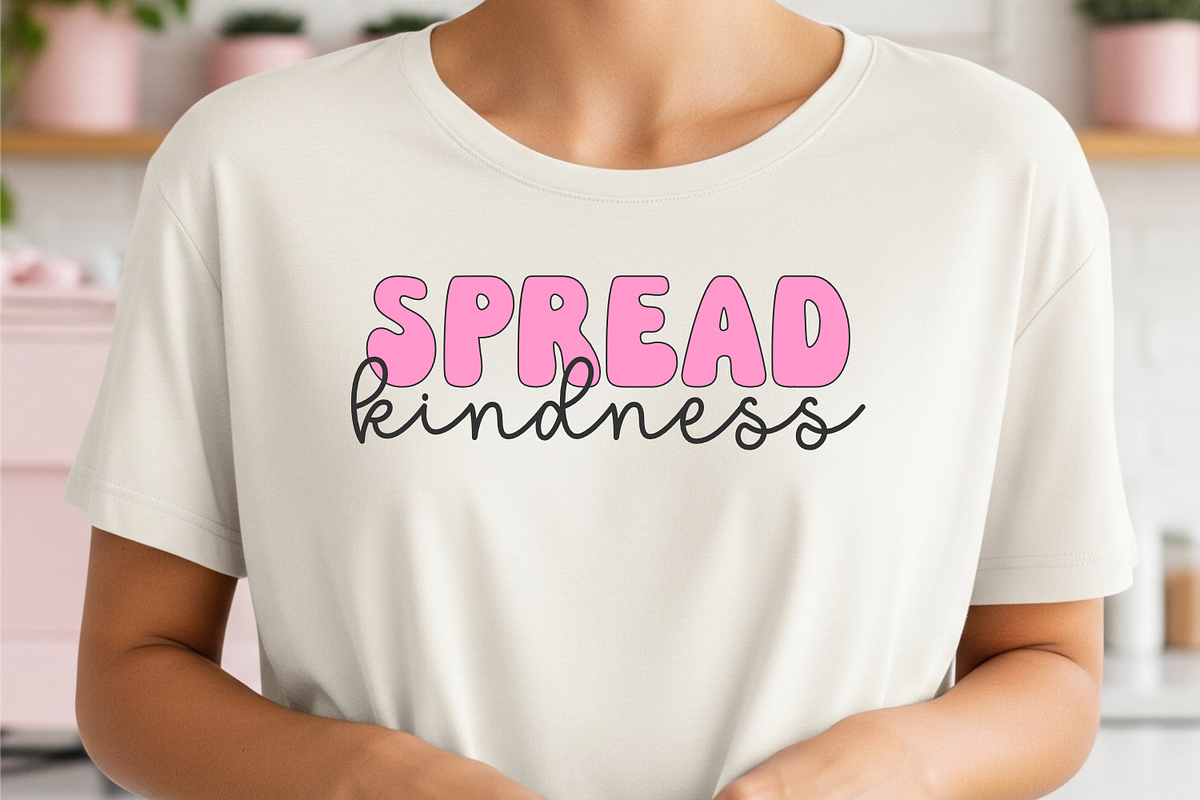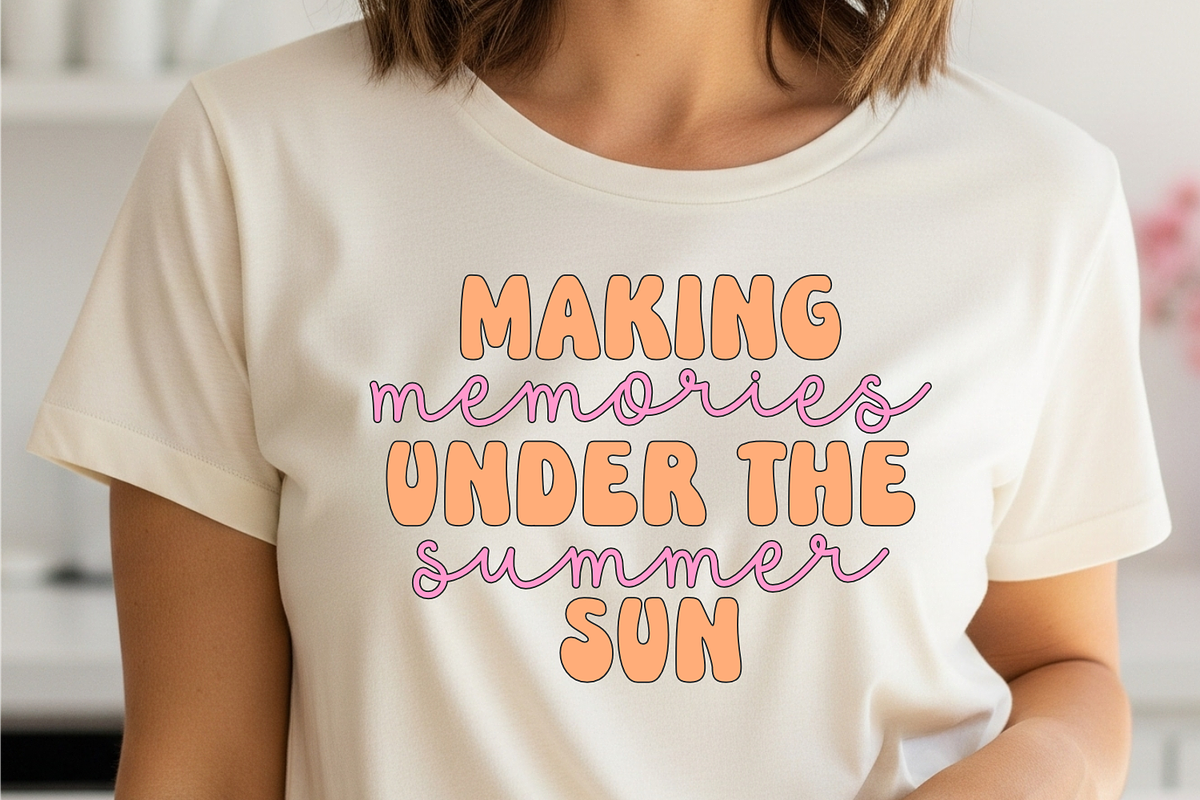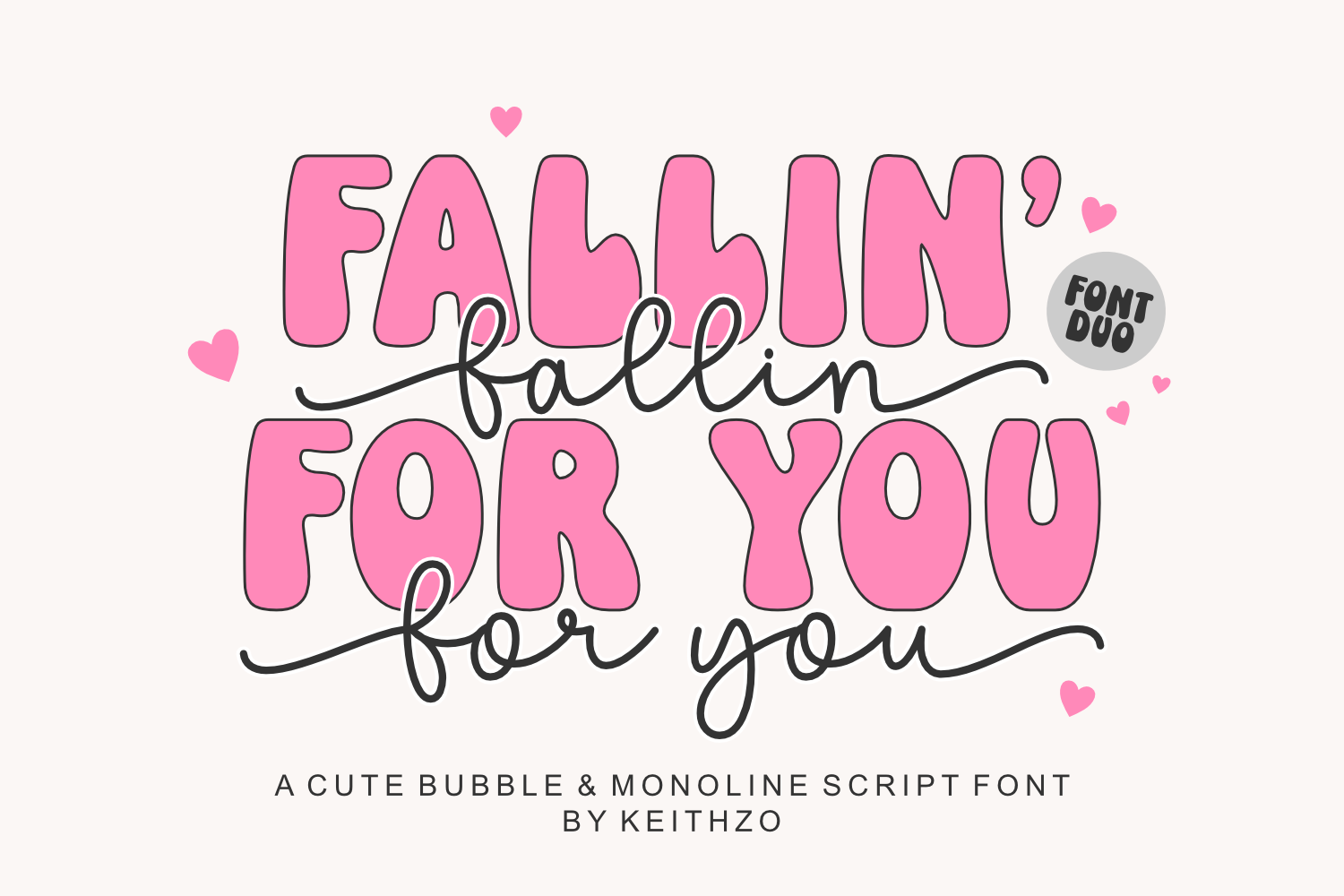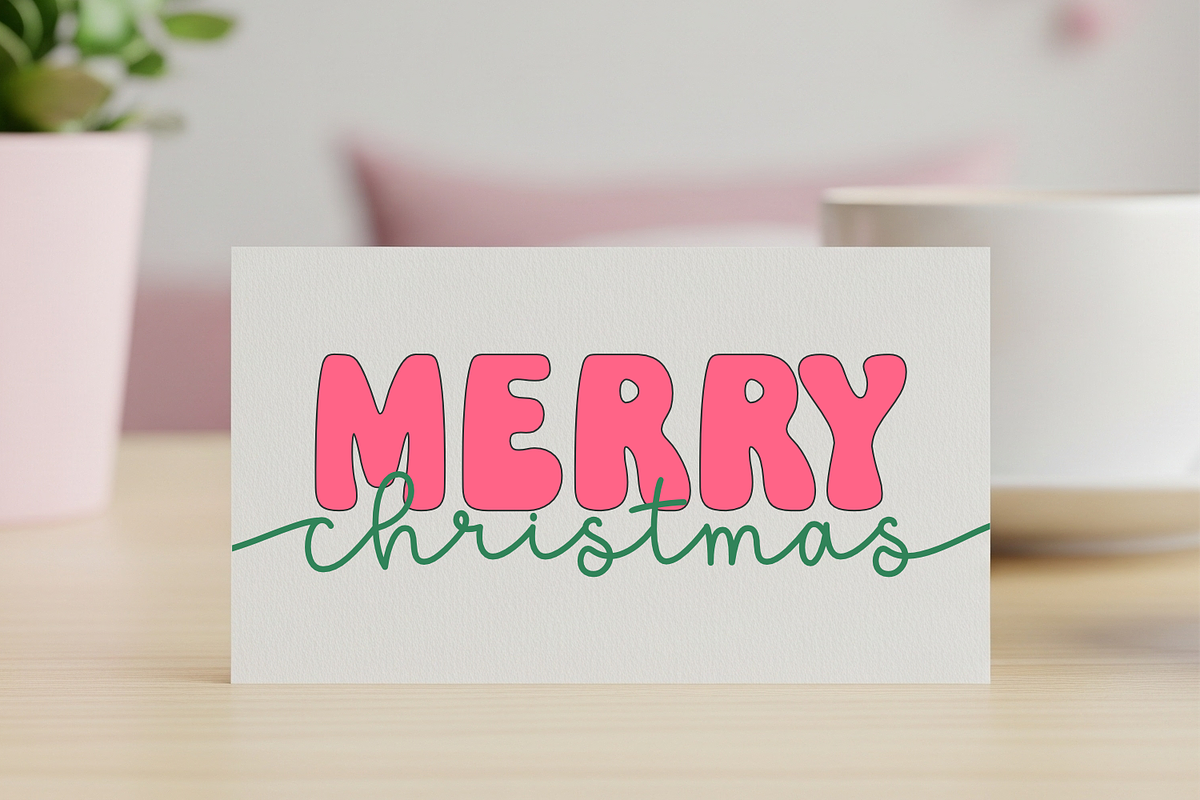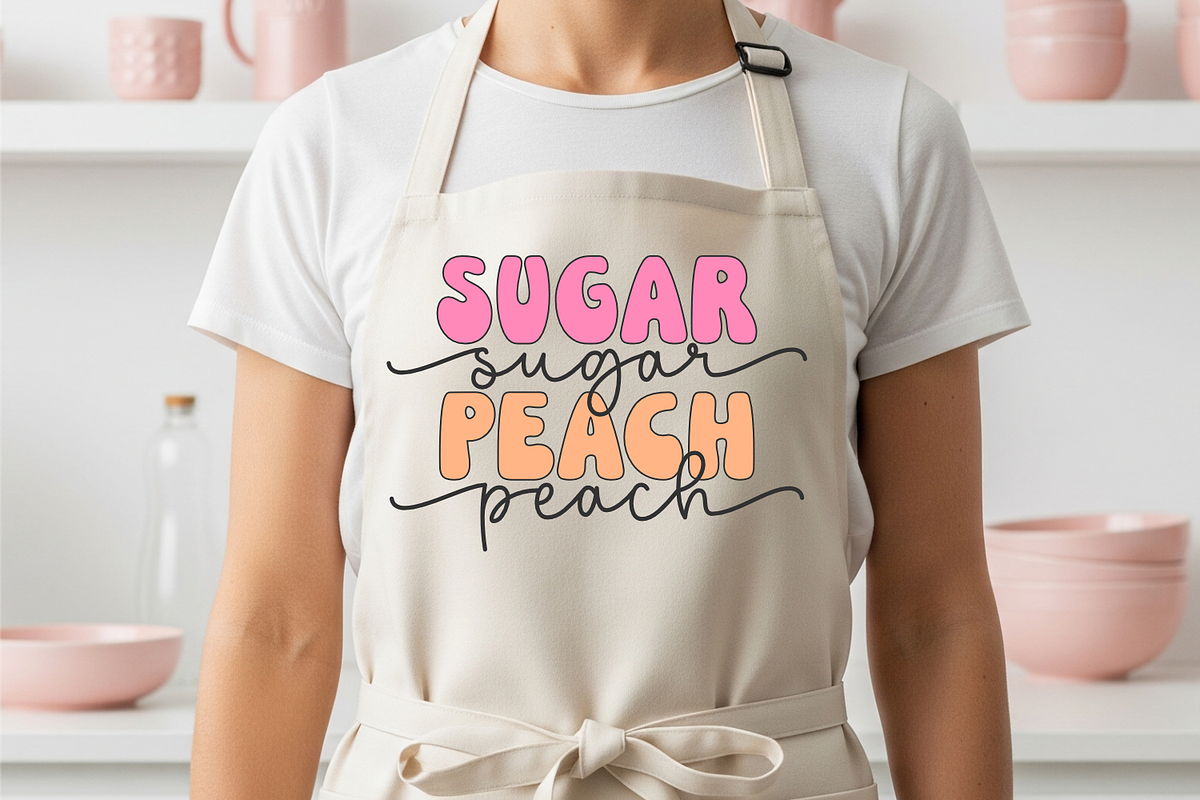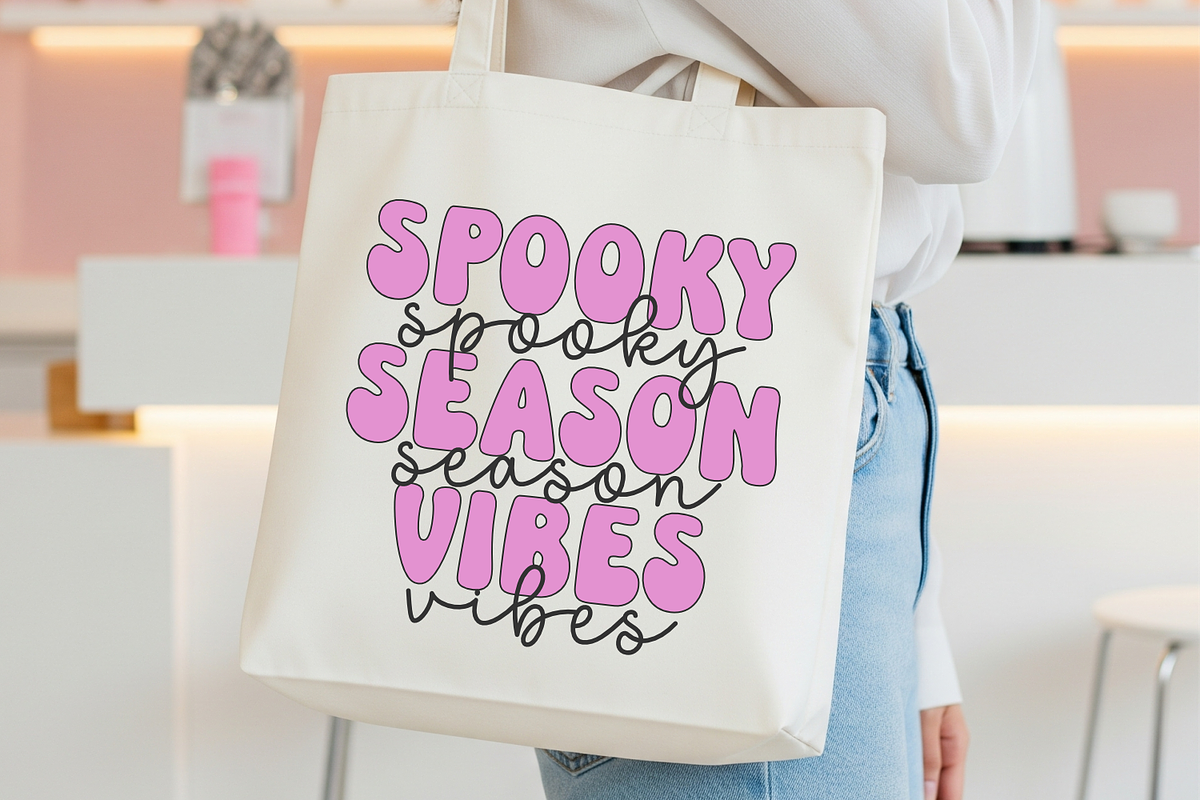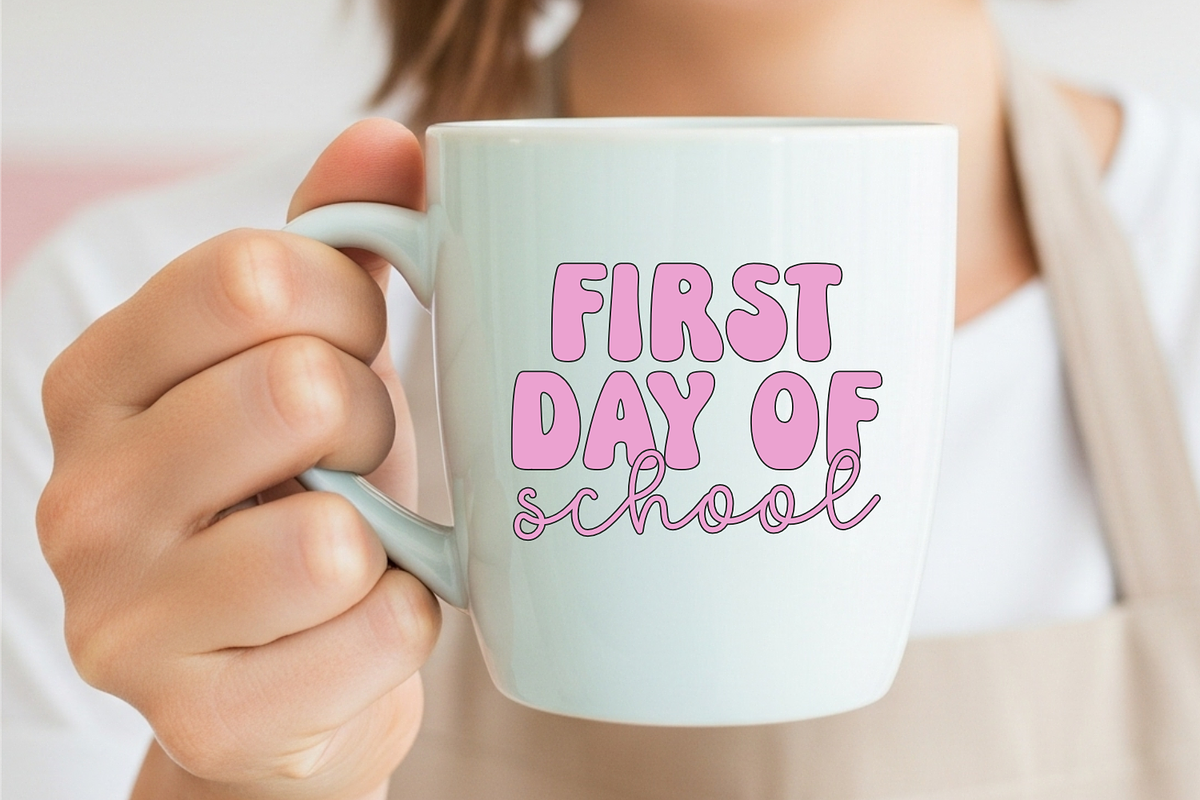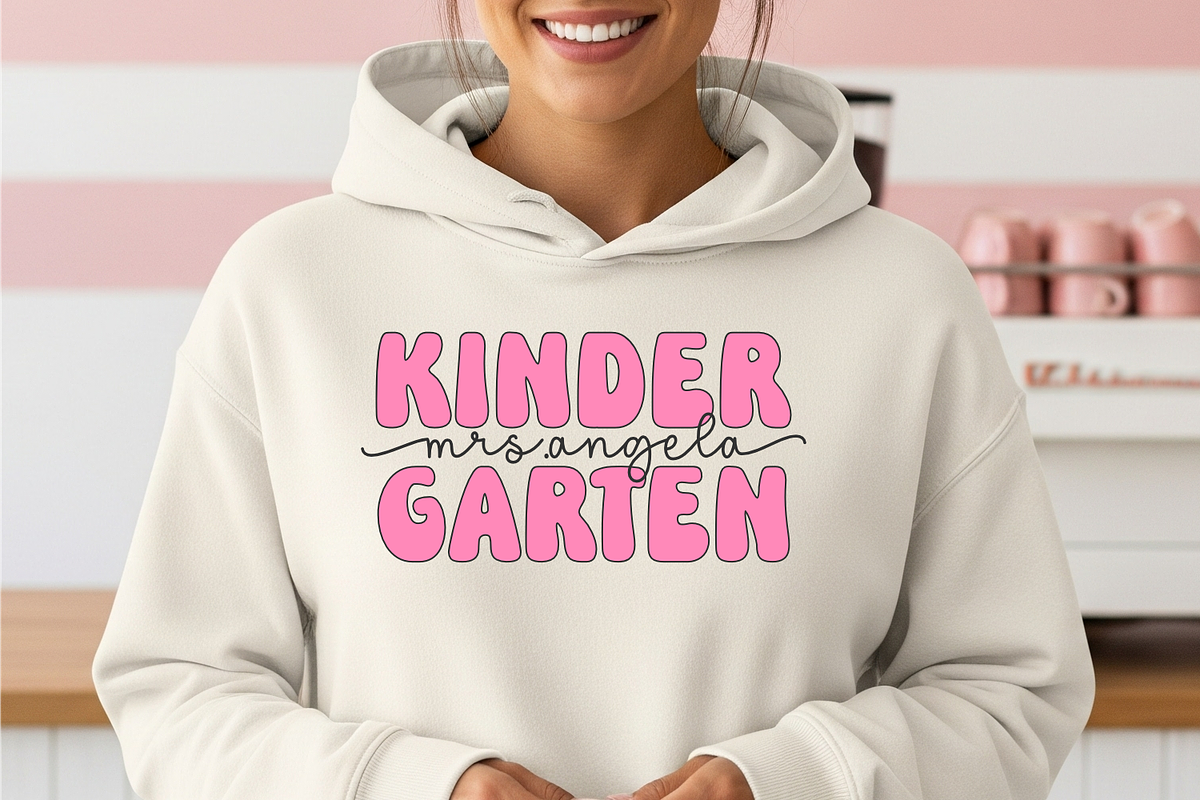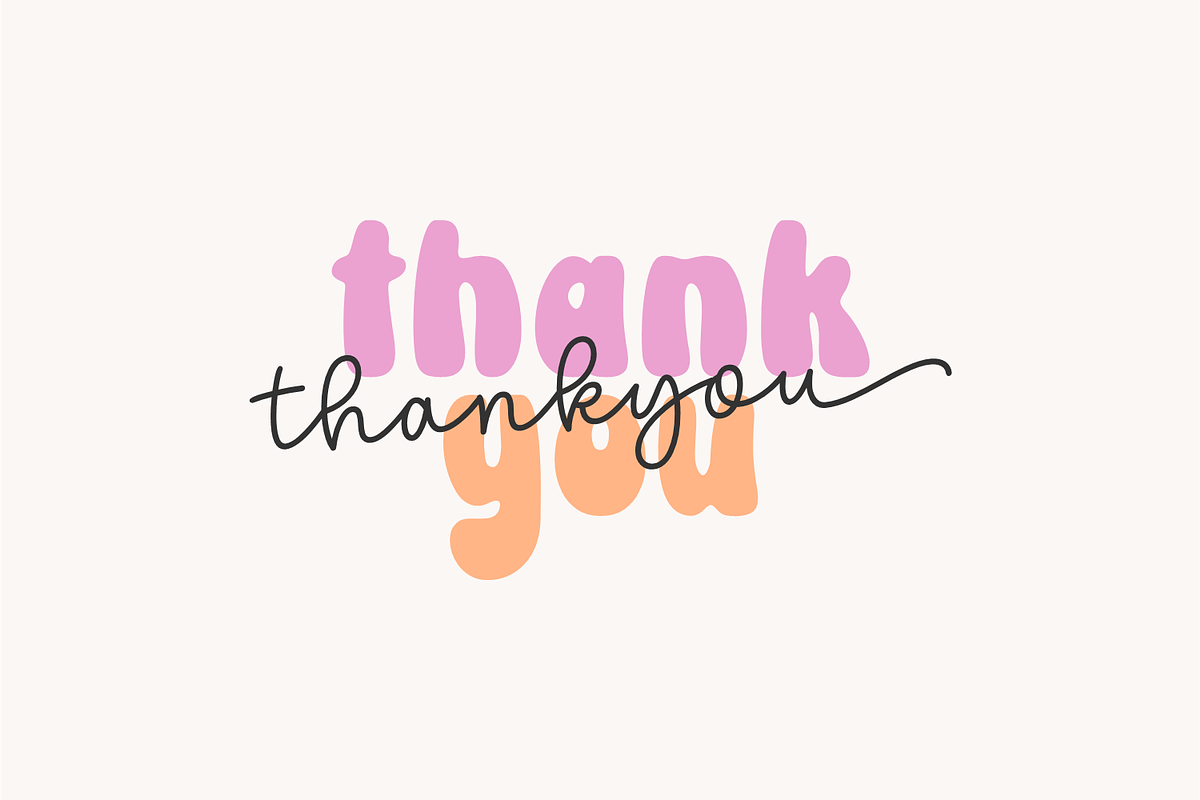
Fallin for You - Font Duo
Fallin’ for You The Ultimate Font Duo for Heartfelt Designs
Fallin’ for You is a charming and versatile font duo created to infuse your projects with an irresistible blend of fun and romance. Fallin’ for You it’s a complete toolkit for creating designs that feel genuine, personal, and full of heart.
This package includes two beautifully complementary fonts, designed to work together seamlessly :
❤️ Fallin’ for You – A bold and cheerful display font with a rounded, joyful aesthetic. This font is perfect for headlines that need to pop, from attention-grabbing t-shirts and social media graphics to vibrant branding. Its friendly, approachable style makes your message feel instantly warm and inviting.
❤️ Fallin’ for You Script – A graceful script with a single, flowing line that adds a touch of handcrafted elegance. The true magic lies in its stylistic swashes—beautiful, flowing tails that automatically connect at the end of words, giving your typography a polished, custom-made finish. It’s ideal for adding a personal, signature-like touch to any project.
Perfect for: Your Next Project, Branding & Packaging, Design eye-catching quotes, announcements, and stories that stand out in a busy feed, Invitations & Cards, Merchandise, Crafting & DIY.
Fallin’ for Youfont is a creative partner that helps you tell a story and connect with your audience on a deeper level. Get ready to fall in love with your designs all over again.
Fallin for You font is also PUA-encoded, ensuring effortless access to all glyphs, swashes, and alternate characters to help you customize your creations with ease